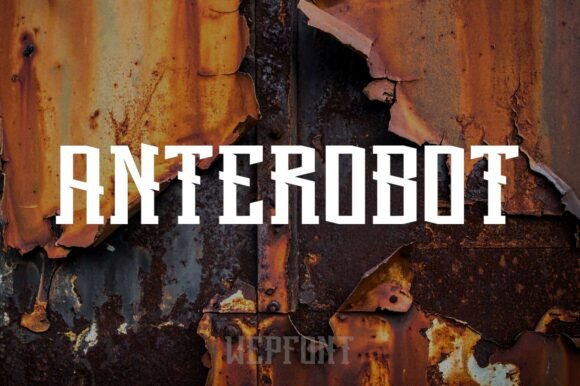
Discover the Power of Anterobot Font: A Futuristic Display Typeface
I’ll never forget the design project that led me to discover the Anterobot Font. I was working on a sci-fi themed movie poster, and I was struggling to find the perfect font that would convey the sense of industrial strength and futuristic edge I was looking for. That’s when I stumbled upon Anterobot, and it instantly became the perfect fit. In this article, I’ll share my experience with this robust and futuristic display typeface, and explore its features, uses, and alternatives.
A Personal Review of Anterobot Font
So, what do I love about Anterobot Font? 🤔 Here are a few things that stood out to me:
• ✨ Strong, blocky letterforms that immediately bring to mind industrial design and mechanical precision.
• ✅ Subtle stencil-like cuts or distressed textures that give it a powerful, weathered, and high-tech aesthetic.
• 🌟 All-caps characters with a wide stance and a solid, unyielding presence that demands attention.
However, I did notice a few small quirks:
• ⚠️ Limited font variations – while the font comes in a few different weights, it’s mostly suitable for display use.
• 🤔 Some characters may be difficult to read at smaller sizes due to the distressed textures and stencil-like cuts.
The Backstory of Anterobot Font
The Anterobot Font was designed by a team of typographers who wanted to create a font that would evoke the sense of industrial strength and futuristic edge. Inspired by sci-fi movies and video games, they crafted a font that’s both bold and precise. While the designer’s true identity remains a mystery, their work has captured the hearts of many designers and crafters.
What is Anterobot Font best used for? Anterobot Font is best used for projects that require a bold, modern, and somewhat gritty industrial or sci-fi feel, such as movie posters, video game titles, technology branding, and heavy metal album art.
Can I use Anterobot Font for body text? While Anterobot Font is primarily designed for display use, it can be used for body text in certain contexts. However, its distressed textures and stencil-like cuts may make it difficult to read at smaller sizes.